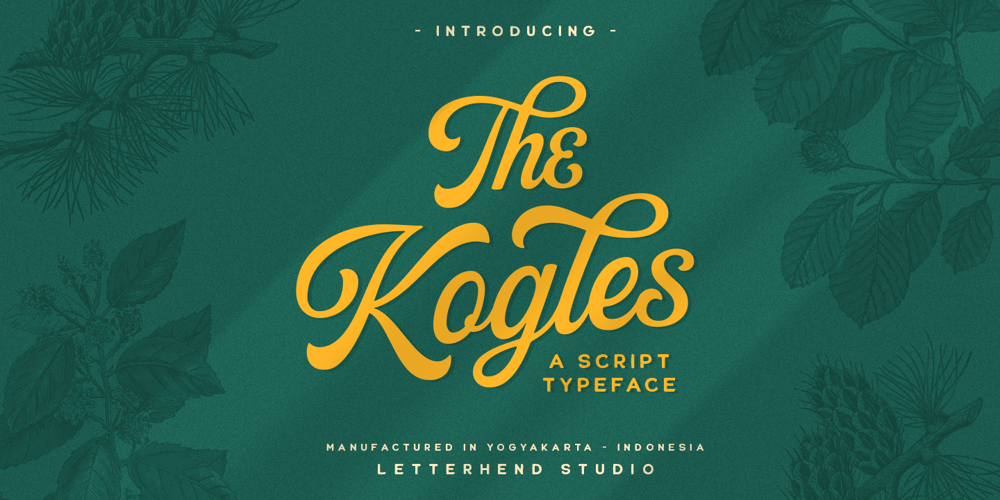
The Kogles Script
The Kogles Script font
The Kogles Script Font Family was designed by Hendry Juanda and published by Letterhend. The Kogles Script contains 1 styles and family package options. Please welcome our newest script typeface, The Kogles, a nice script typeface with retro feel. This font is perfect to be applied especially in logos and the other various formal forms such as invitations, labels, logos, magazines, books, greeting/wedding cards, packaging, fashion, make up, stationery, novels, labels or any type of advertising purpose.